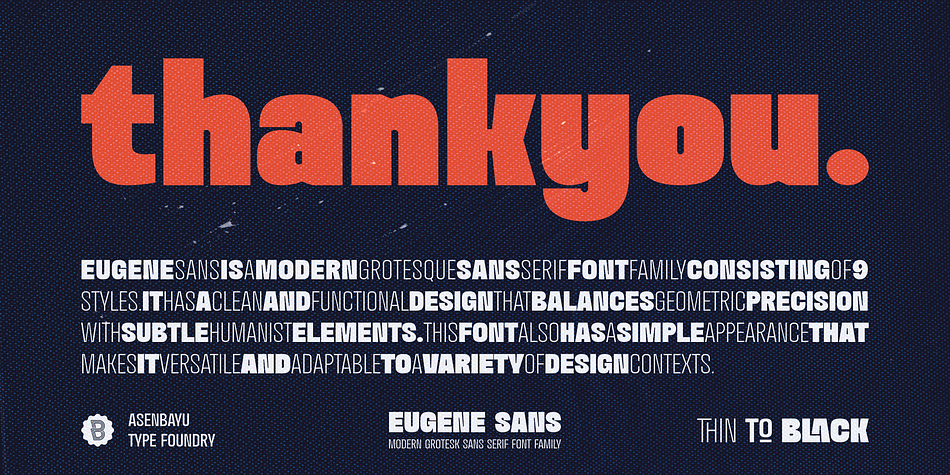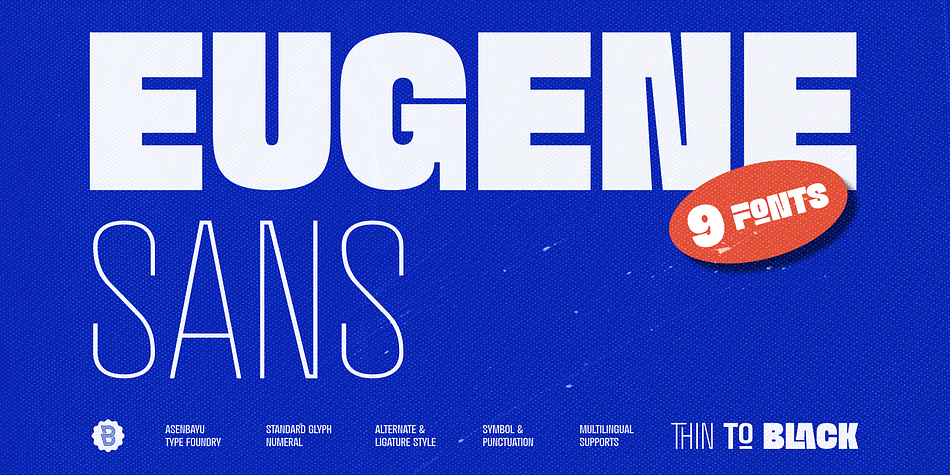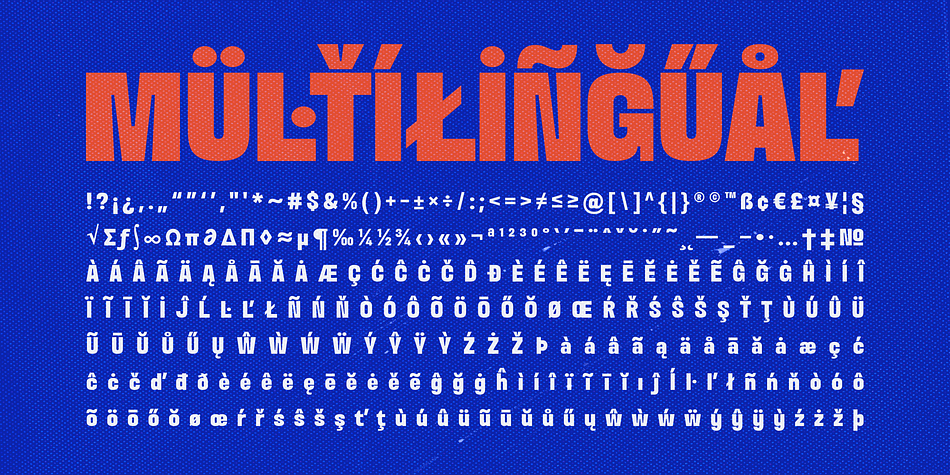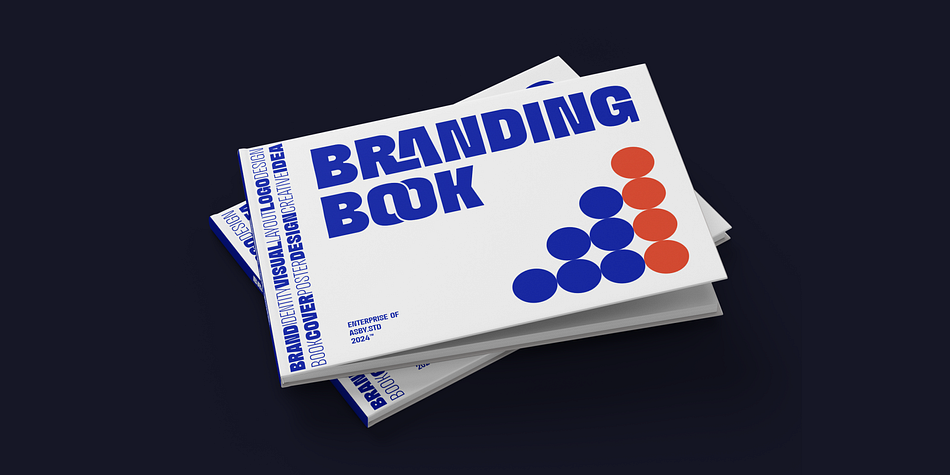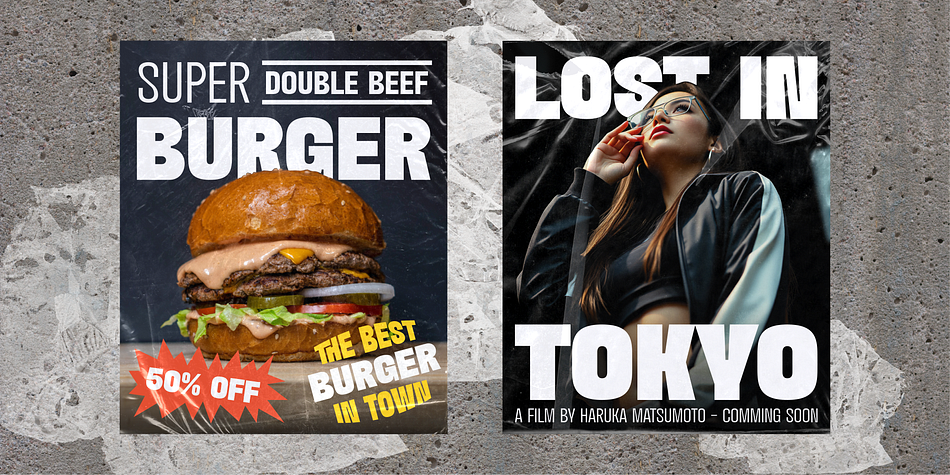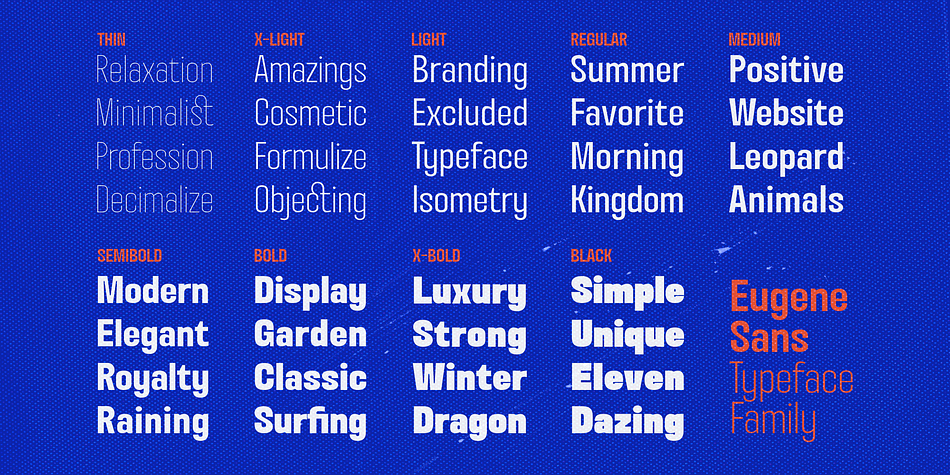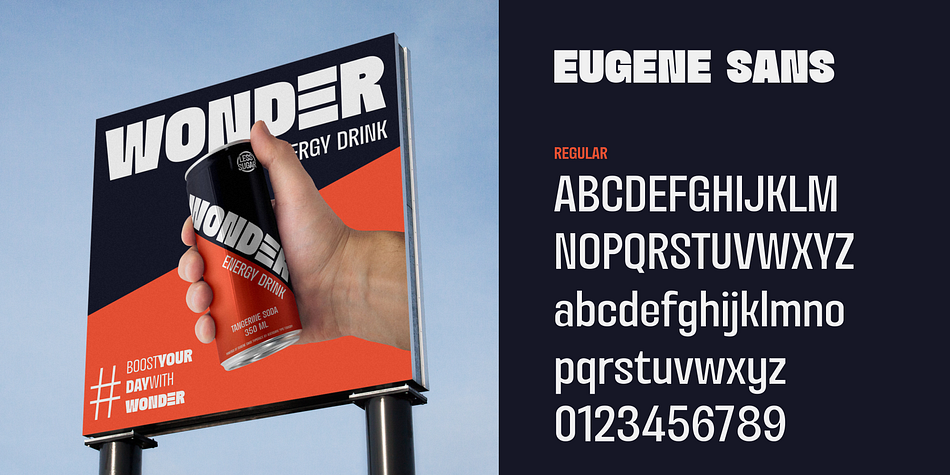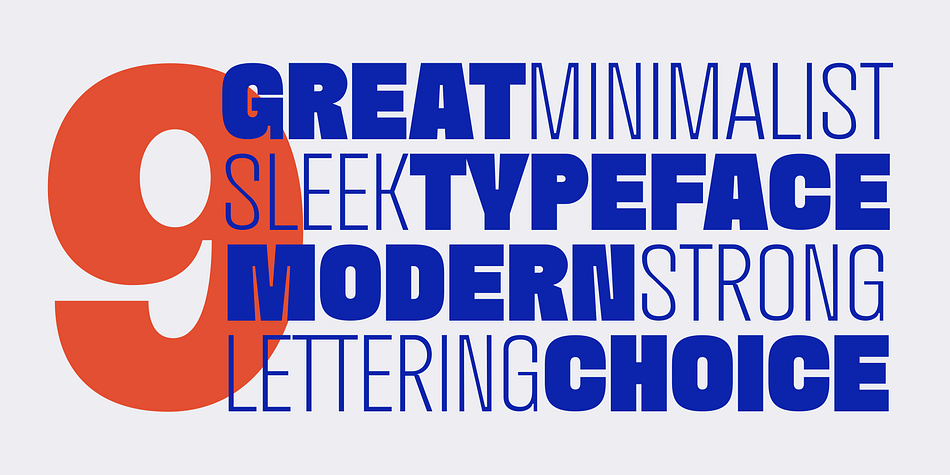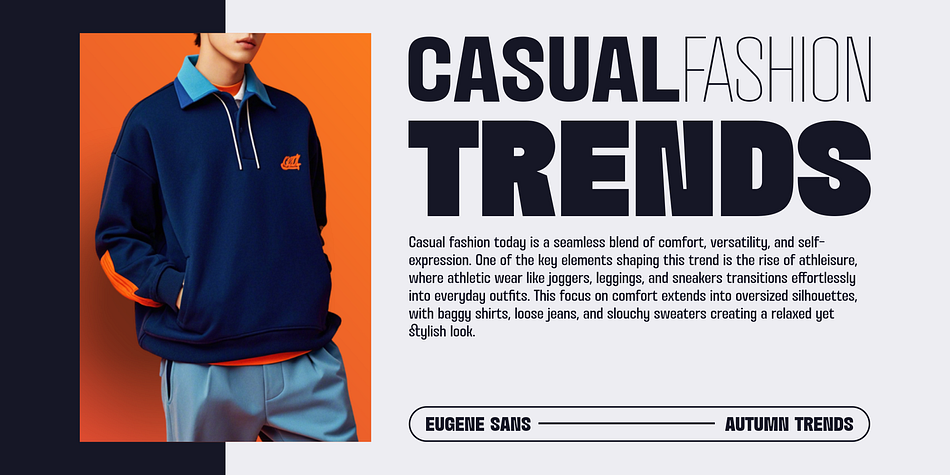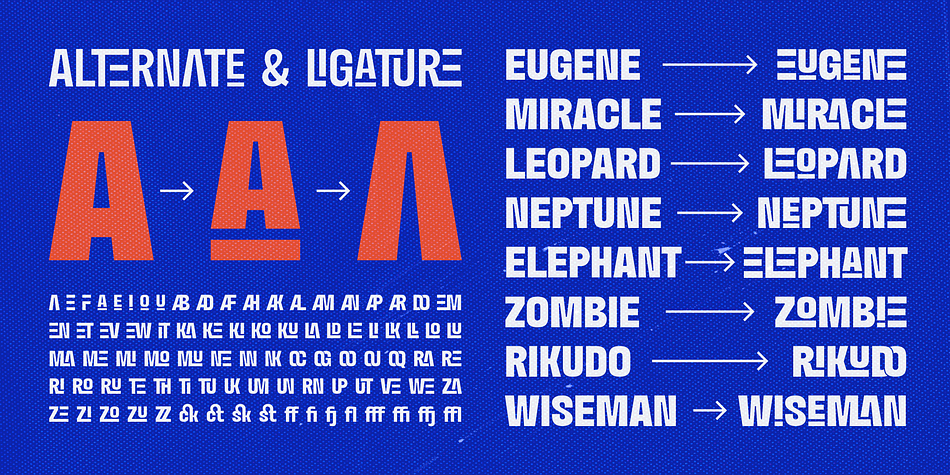
Eugene Sans
Eugene Sans is a sans serif font family. This typeface has nine styles and was published by Asenbayu.
Eugene Sans is a modern grotesque sans serif font family consisting of 9 styles. It has a clean and functional design that balances geometric precision with subtle humanist elements. It also has a simple appearance that makes it versatile and adaptable to a variety of design contexts. This font is suitable for trendy packaging label designs, unique desired logos, poster designs, headlines and many more.
Font Features:
- 9 Styles (Thin to Black)
- Standard Glyph
- Stylistic Alternate & Ligature
- Numeral & Punctuation
- Multiple Languages Supported